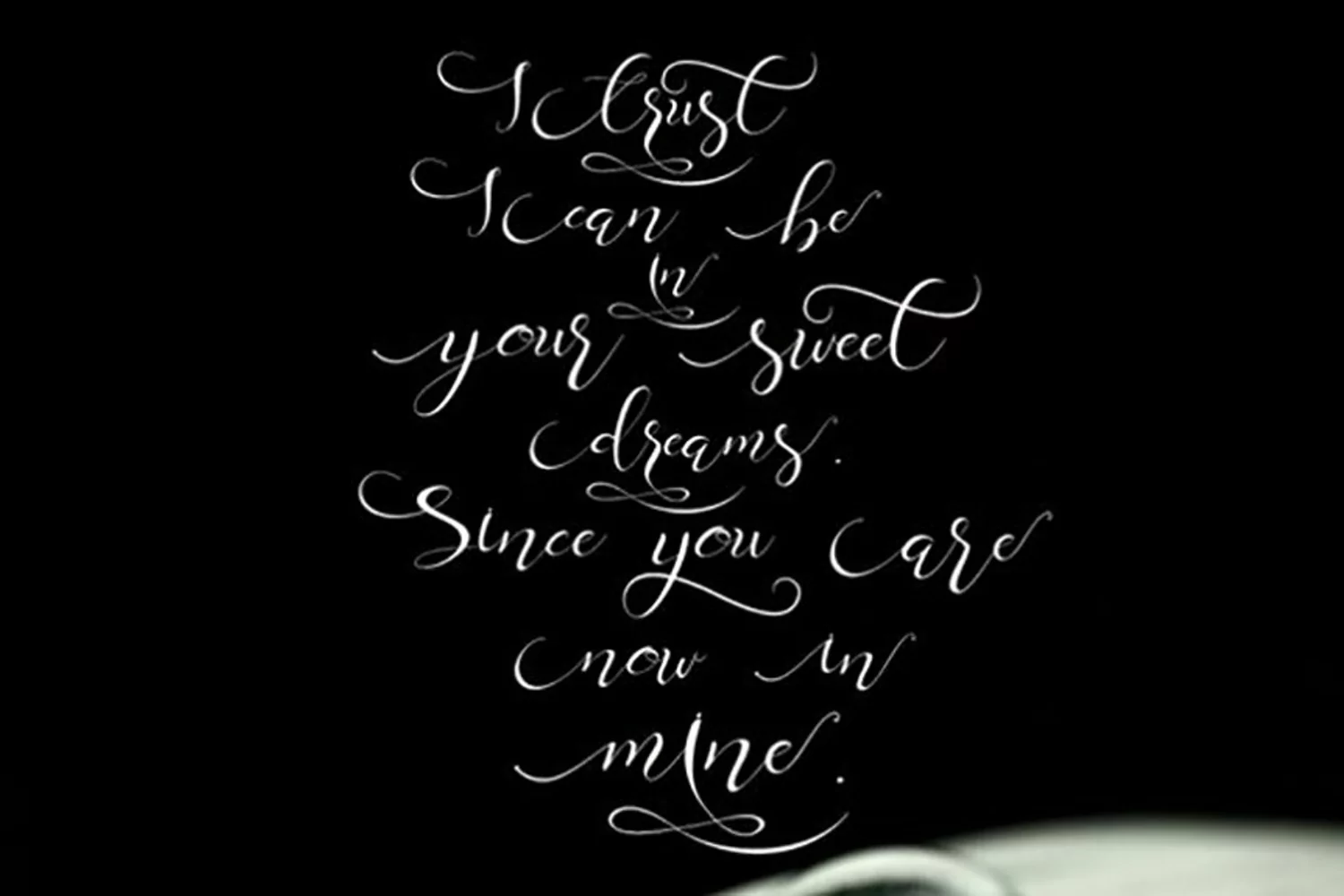
INTRODUCING
Jasmine script
Is a hand calligraphy, smooth, modern and clasik, calligraphy wavy, which was created to meet the needs of your next design project. Jasmine, Can used for various purposes. such as the title, signature, logo, correspondence, wedding invitations, letterhead, signage, labels, newsletters, posters, badges, etc.
Jasmine features 459 glyphs and has given PUA unicode (specially coded fonts), can be accessed easily with the character map, can be accessed in full by the lovers of letters or artisans to increase career in the design world.
The Features of this fonts is: Standart ligatures, Stylistic Sets and swashes.
Features Basic Latin A-Z and a-z Numbers Symbols